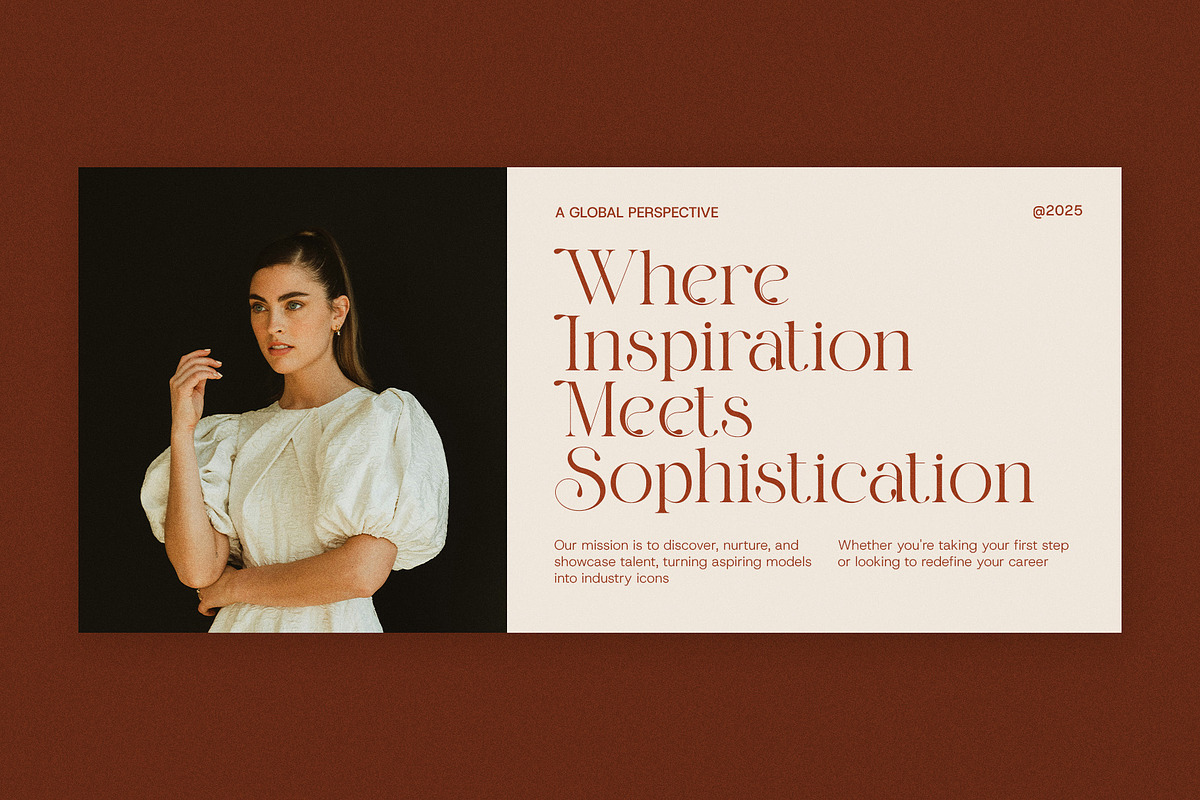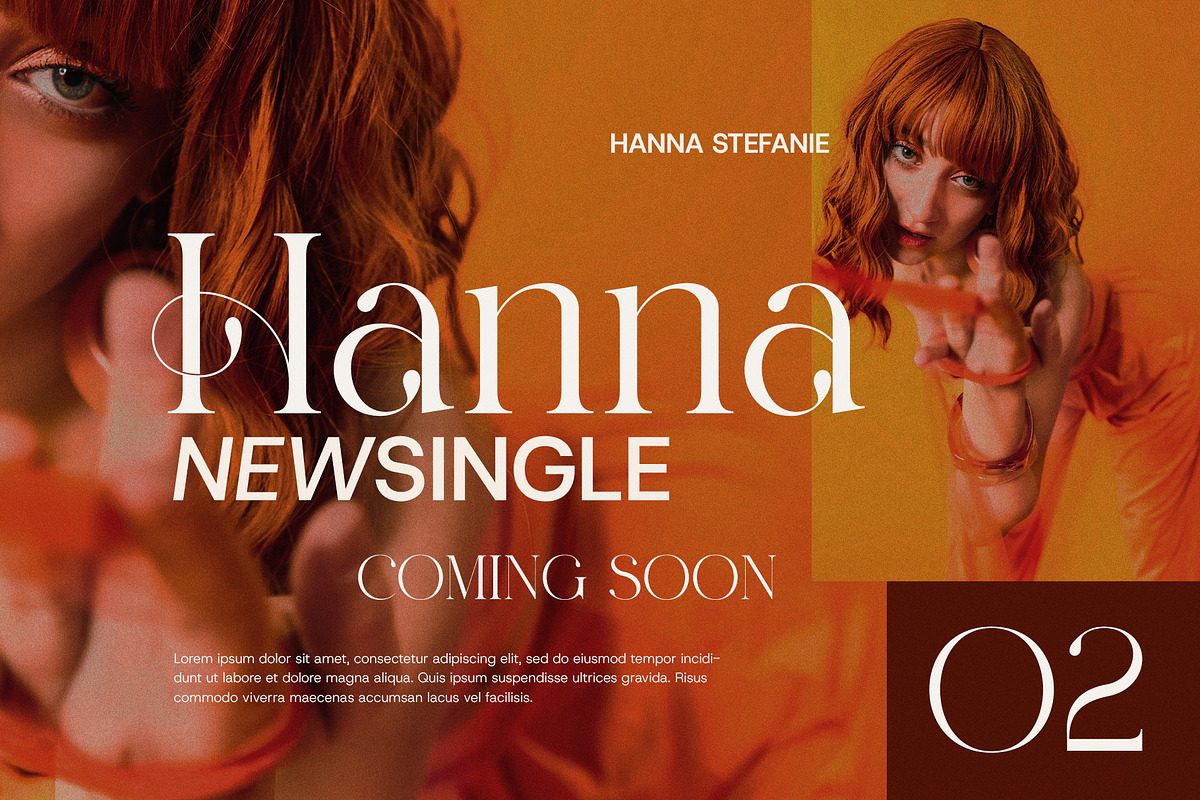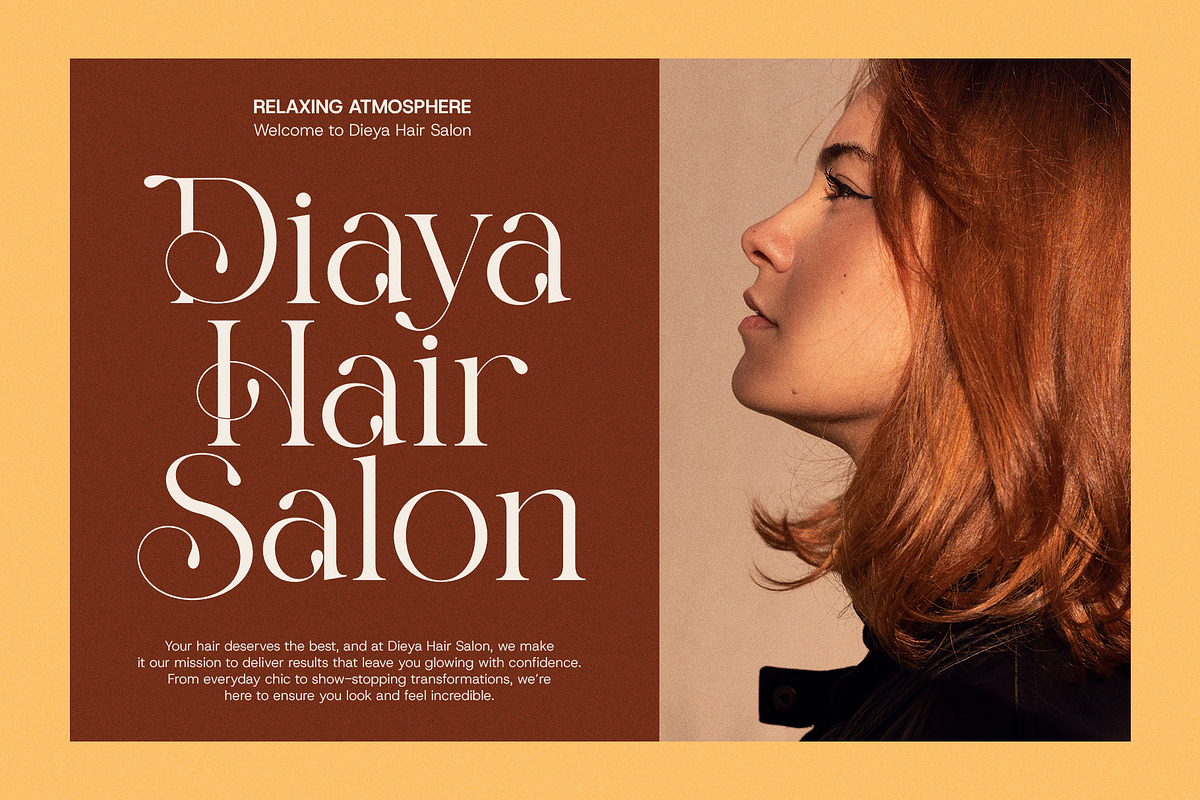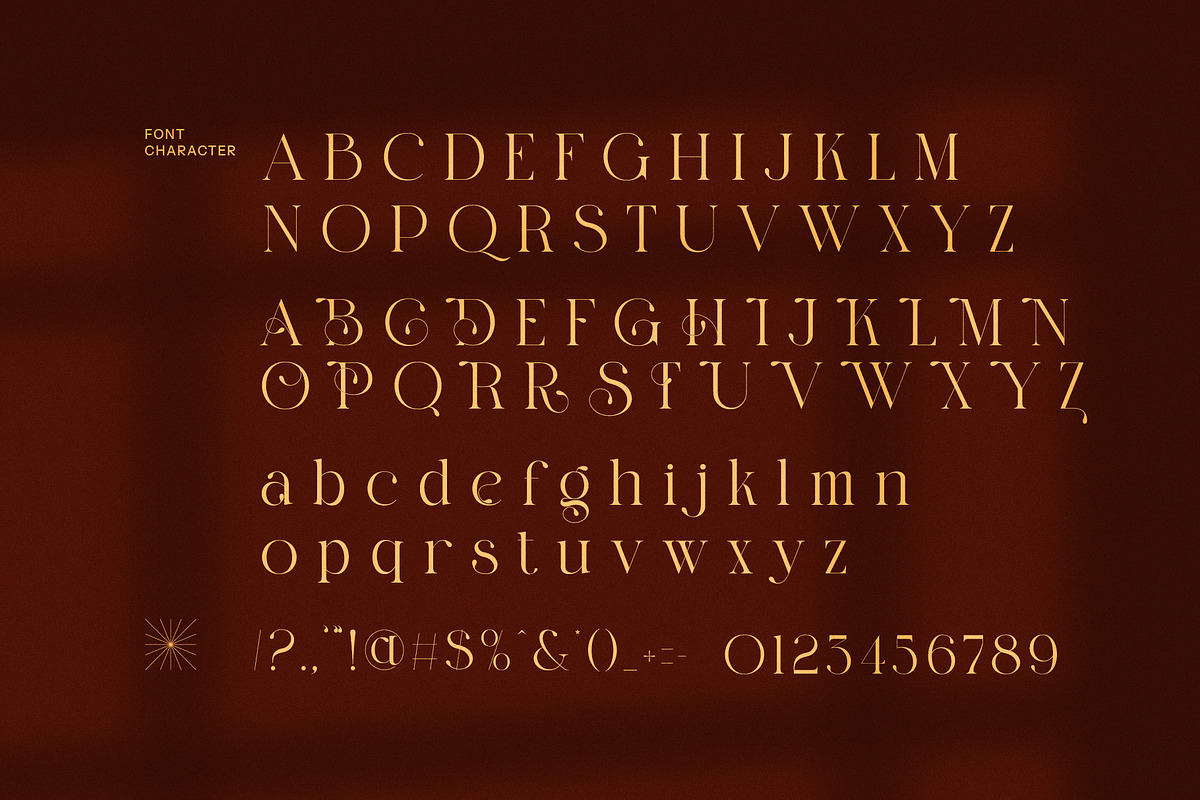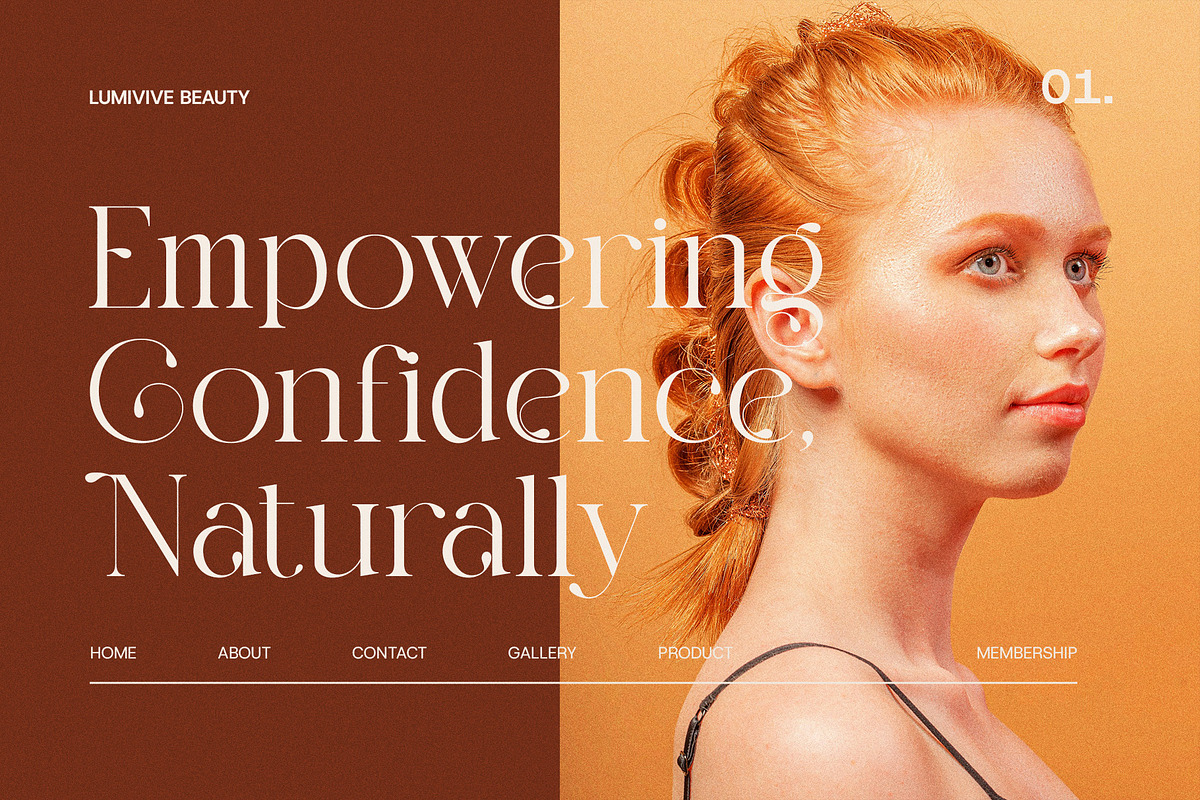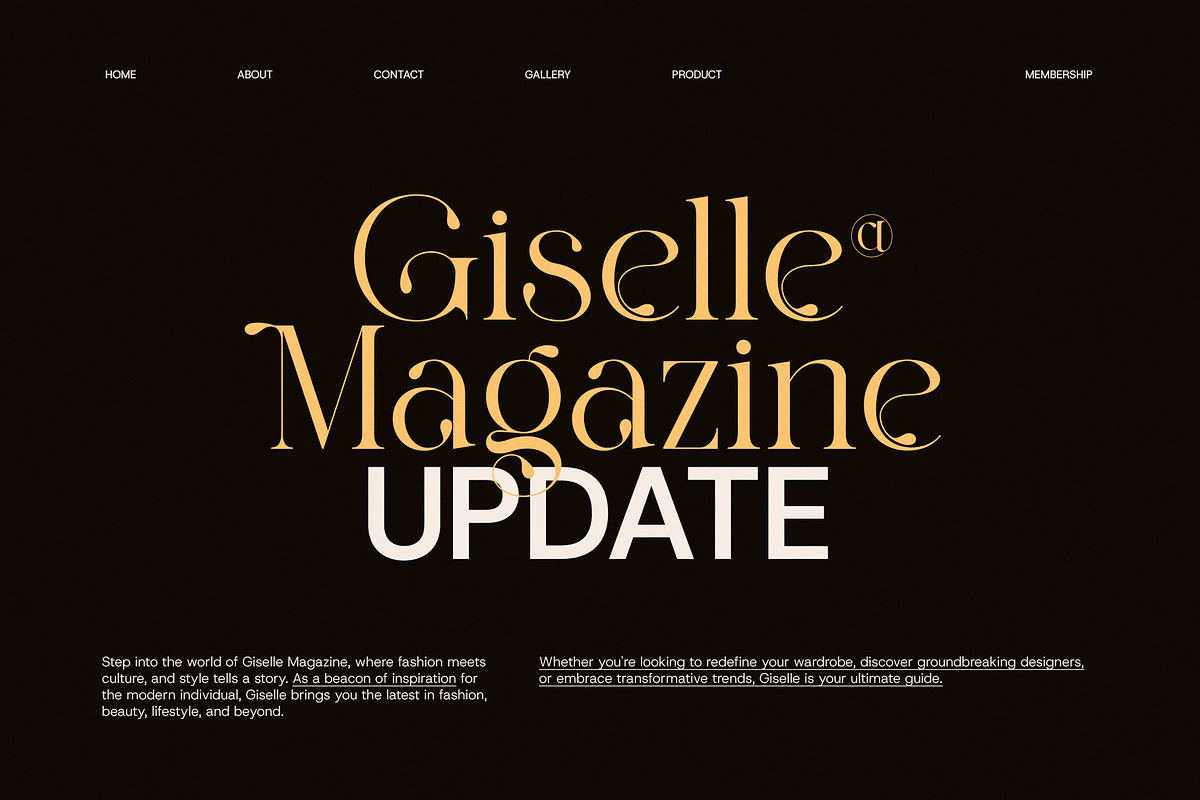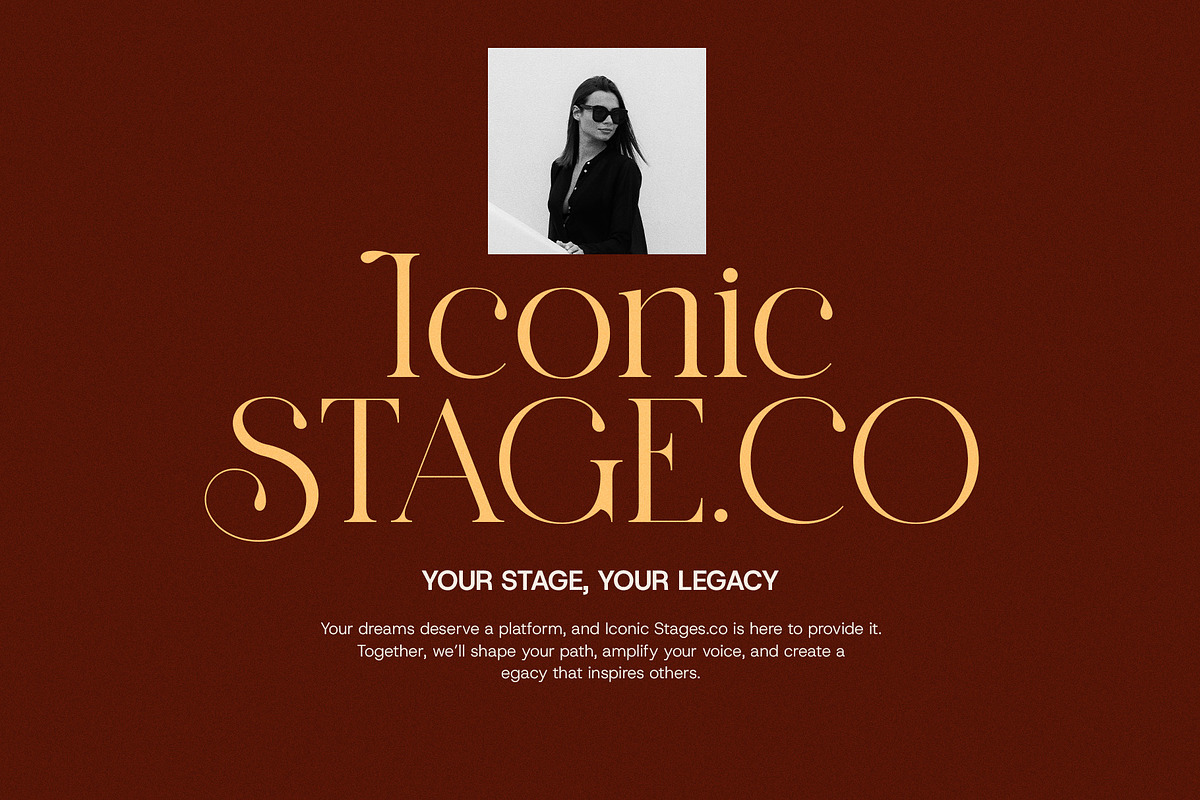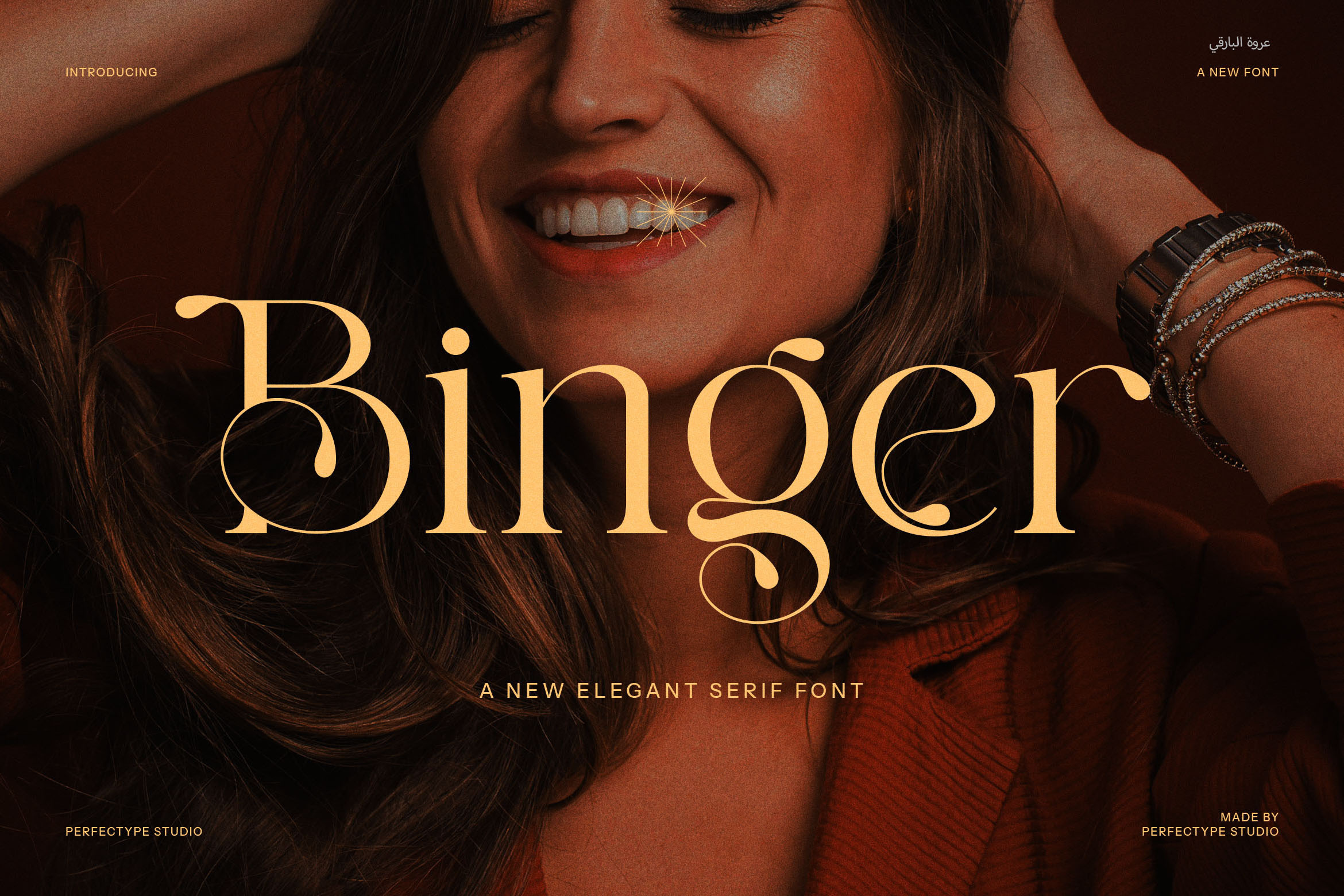
Binger Elegant Serif Font
Binger Modern Serif Font is a striking blend of timeless elegance and contemporary style, designed to make your projects stand out. With its refined serif details and clean, sleek lines, this font offers a sophisticated touch perfect for a variety of uses. The unique ligatures and alternate characters elevate Binger to a new level of customization, allowing it to seamlessly adapt to diverse creative needs.
Whether you're designing for high-end branding, sleek website layouts, or eye-catching advertisements, Binger Modern Serif brings a sense of luxury and professionalism. Its versatile structure ensures it works beautifully in both large display settings—such as logos, headlines, and product labels—and in smaller, detailed text for magazines, brochures, or editorial work.
Binger’s modern aesthetic makes it particularly ideal for contemporary businesses like boutiques, restaurants, and upscale services looking for a distinctive, high-quality typeface. The thoughtful balance of form and function in this font guarantees readability without compromising style. Perfect for anyone looking to add a sophisticated, yet approachable feel to their creative endeavors, Binger Modern Serif will quickly become an essential in your design toolkit.
Whether you’re working on a product launch, designing a website, or crafti